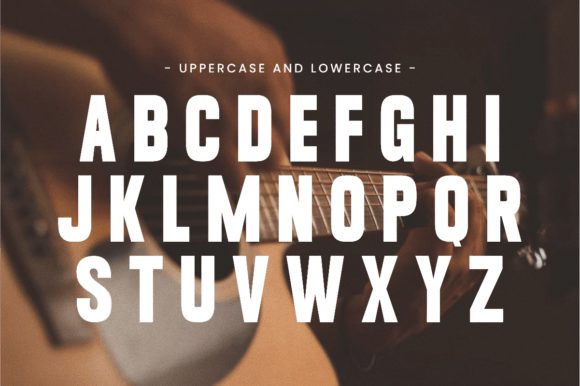
Song Font
Song is a condensed sans serif font with a bold, clean, and modern look. Its strong and compact letterforms are designed to grab attention, making it perfect for music posters, album covers, branding, concert promotions, editorial design, and impactful typography projects. With its versatile style, SONG works beautifully for both digital and print designs where clarity and power are essential.